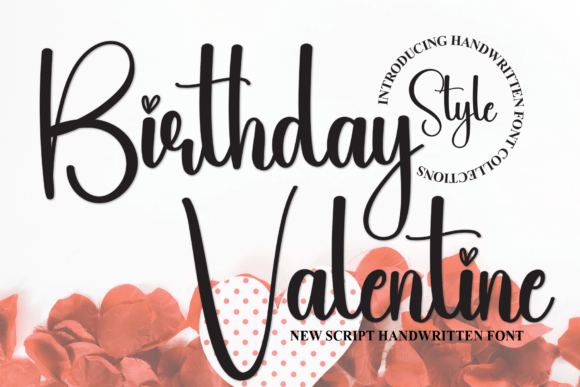
Adding a Touch of Whimsy with Birthday Valentine Font
As a designer, there’s nothing quite like the thrill of creating something special for a loved one. Whether it’s a wedding invitation, a birthday card, or a heartfelt thank you note, the right font can make all the difference in conveying your emotions and making the moment even more unforgettable.
Enter Birthday Valentine Font, a stylish and elegant handwritten script font that’s sure to add a touch of whimsy and romance to any design. Perfect for adding a personalized touch to wedding invitations, greeting cards, logos, and more, this versatile font is a must-have for designers looking to elevate their work and make it truly special.
With its beautiful, flowing script and elegant flair, the Birthday Valentine Font is a valuable asset for any designer looking to add a touch of sophistication and whimsy to their designs.
Birthday Valentine Font Key Features
- Unique Characteristics: The Birthday Valentine Font features a playful, handwritten style with intricate details and flourishes, perfect for adding a touch of whimsy to designs.
Birthday Valentine Font Review
Overall, I think the Birthday Valentine font has some great qualities that make it perfect for certain designs, but it also has some limitations that might make it less suitable for others. ✨
- The playful, handwritten feel of the font is perfect for creating a whimsical and romantic atmosphere.
- The bold and cursive strokes add a touch of sophistication and elegance to the design.
- The font is highly customizable, making it easy to adjust to different color schemes and layouts.
- The font’s cursive style makes it perfect for writing out special messages, like love letters or birthday wishes.
- ⚠️ The font may not be suitable for formal or professional designs, as it can come across as too casual or cutesy.
- ⚠️ The font’s bold strokes can make it difficult to read in certain contexts, especially when used in small sizes.
The Birthday Valentine font is a great choice for designers looking to create a playful, romantic, and whimsical atmosphere in their designs. While it has some limitations, it’s a versatile font that can be used in a variety of contexts with a little creativity and experimentation.
For optimal results, use the Birthday Valentine Font in bold or italic styles to add emphasis.
- Birthday cards and invitations
- Valentine’s Day cards and gifts
- Wedding invitations and decorations